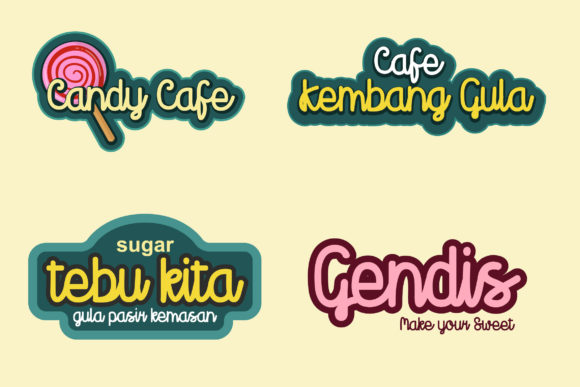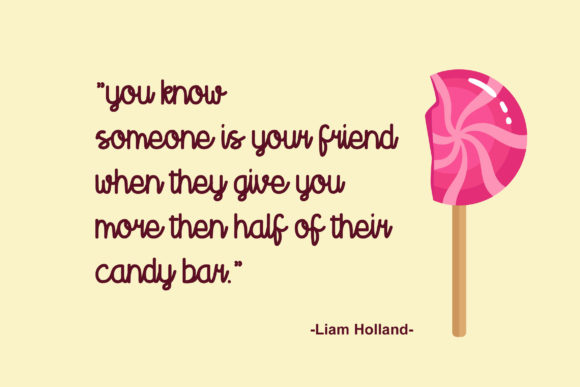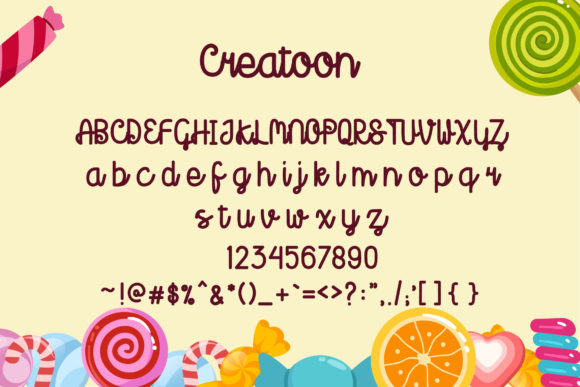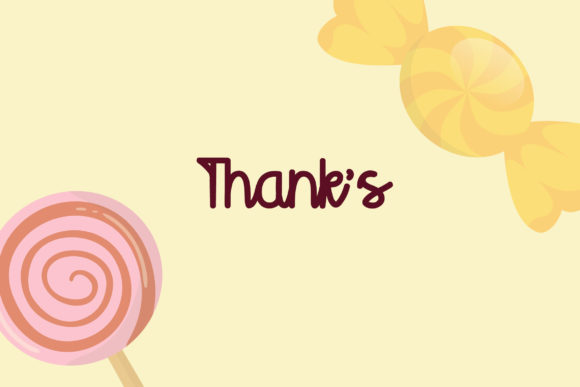
Introducing Creatoon Font: Add a Playful Touch to Your Designs
Are you looking for a font that can add a dash of fun and playfulness to your designs? Look no further than Creatoon Font! This adorable font is perfect for designers and crafters who want to create engaging and eye-catching content. In this article, we’ll explore the features and benefits of Creatoon Font, and show you how to use it to take your designs to the next level.
What is Creatoon Font?
Creatoon Font is a unique and creative font that is designed to bring a smile to your face. Its fun and playful letters are carefully crafted to add a touch of whimsy to your designs. Whether you’re working on a logo, headline, quote, poster, or t-shirt, Creatoon Font is the perfect choice. Its cute and quirky style is sure to capture the attention of your audience and leave a lasting impression.
Key Features of Creatoon Font
- Playful and Fun: Creatoon Font is designed to be fun and playful, making it perfect for designs that require a lighthearted touch.
- Cute Letters: The font features adorable letters that are sure to capture the attention of your audience.
- Versatile: Creatoon Font can be used in a variety of designs, including headlines, logos, quotes, posters, t-shirts, and more.
- Easy to Read: Despite its playful style, Creatoon Font is easy to read, making it perfect for designs that require a clear and concise message.
Benefits of Using Creatoon Font
So, why should you use Creatoon Font in your designs? Here are just a few benefits:
- Adds a Personal Touch: Creatoon Font adds a personal touch to your designs, making them more relatable and engaging.
- Creates a Lasting Impression: The playful and fun style of Creatoon Font is sure to leave a lasting impression on your audience.
- Perfect for Branding: Creatoon Font is perfect for branding projects that require a fun and playful touch.
How to Use Creatoon Font in Your Designs
Using Creatoon Font in your designs is easy! Here are a few tips to get you started:
- Headlines: Use Creatoon Font in your headlines to add a touch of fun and playfulness.
- Logos: Creatoon Font is perfect for logos that require a playful and creative touch.
- Quotes: Use Creatoon Font to add a touch of whimsy to your quotes and sayings.
- Posters: Creatoon Font is perfect for posters that require a fun and eye-catching font.
- T-Shirts: Use Creatoon Font on your t-shirts to add a playful touch to your designs.
Tips and Tricks for Working with Creatoon Font
Here are a few tips and tricks to help you get the most out of Creatoon Font:
- Experiment with Colors: Creatoon Font looks great in a variety of colors, so don’t be afraid to experiment and find the perfect color for your design.
- Play with Size: Creatoon Font can be used in a variety of sizes, from small and subtle to large and bold.
- Combine with Other Fonts: Creatoon Font can be combined with other fonts to create a unique and creative look.
In conclusion, Creatoon Font is a fun and playful font that is perfect for designers and crafters who want to add a touch of whimsy to their designs. Its cute and quirky style is sure to capture the attention of your audience and leave a lasting impression. With its versatility, ease of use, and range of benefits, Creatoon Font is a must-have font for any designer or crafter.
Get Creative with Creatoon Font!